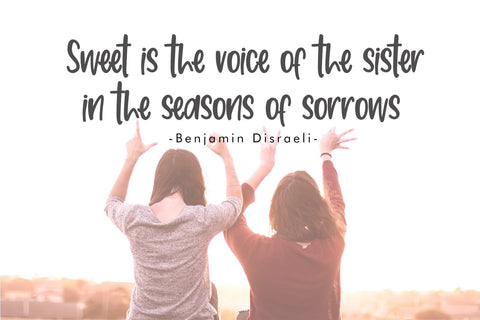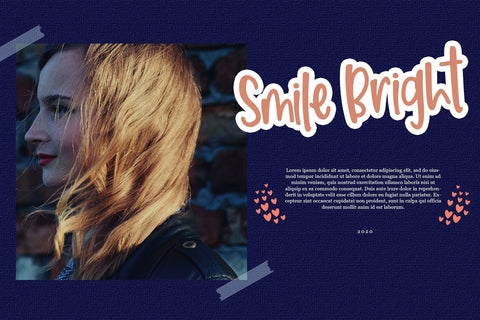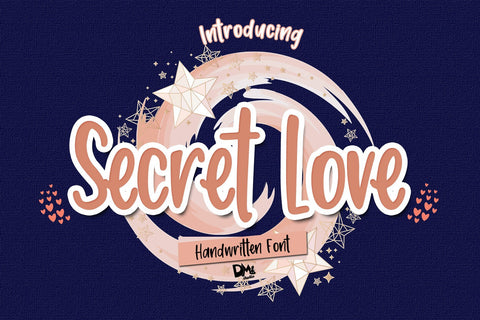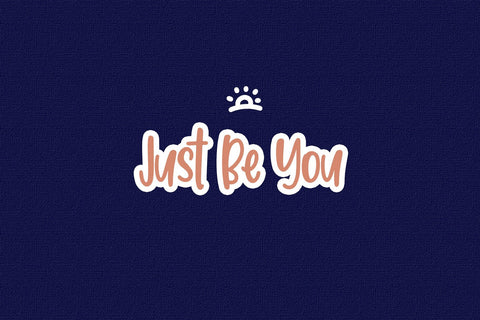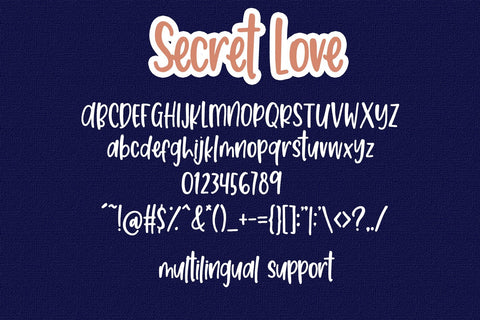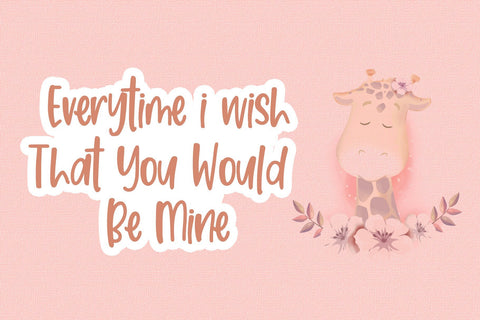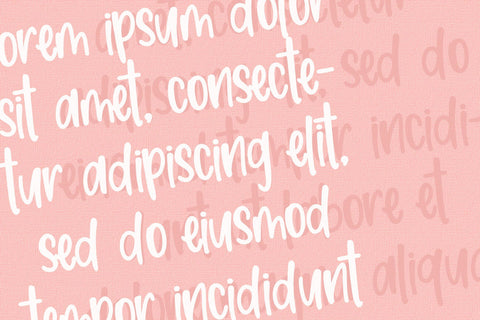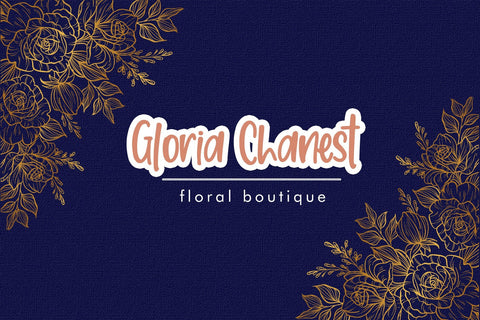
Secret Love - Handwritten Font
Introducing, Secret Love the romantic Handwritten Font
Secret Love is a sweet, simple and friendly handwritten font. It's versatile and give modern look for your design!
-Standard Basic Character set, Uppercase and lowercase
-Numeric and punctuation
-Multilingual Support